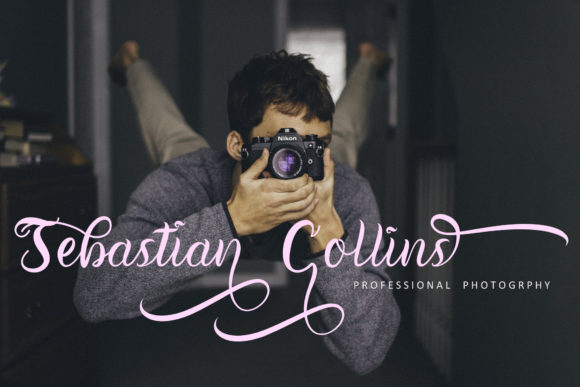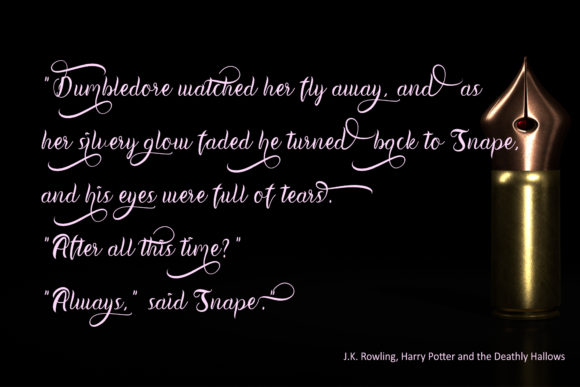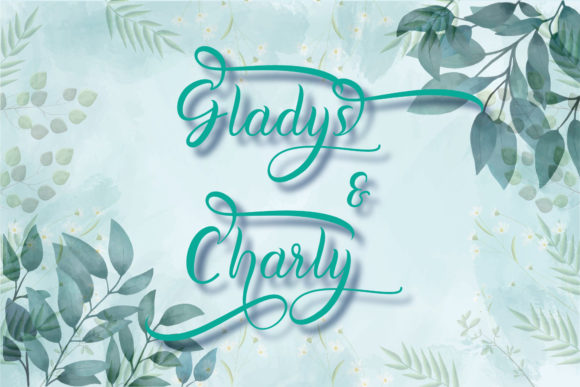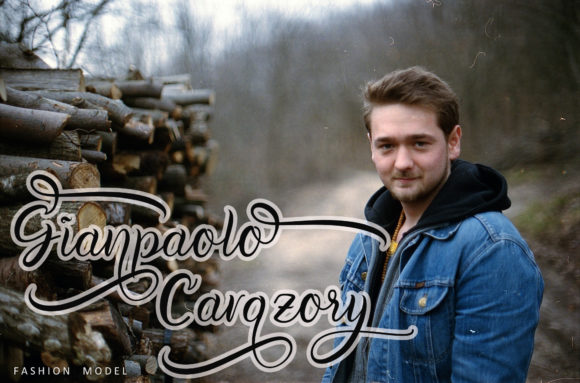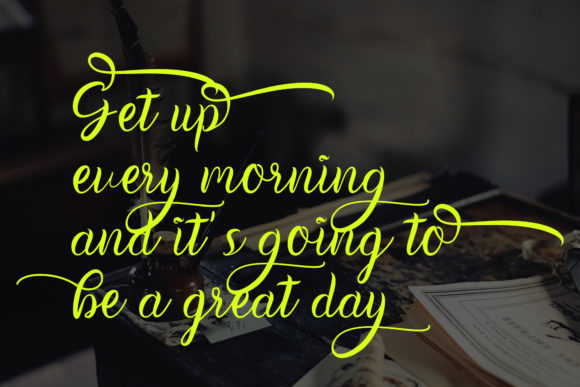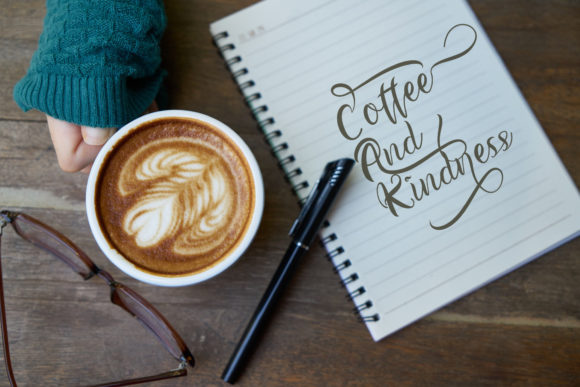
Cittadella Citta Font: A Romantic and Sweet Calligraphy Typeface
Are you a designer or crafter looking for a unique and elegant font to add a touch of sophistication to your projects? Look no further than Cittadella Citta, a romantic and sweet calligraphy typeface that is sure to capture your heart. In this article, we’ll take a closer look at this beautiful font, its features, and how you can use it to elevate your designs.
What is Cittadella Citta Font?
Cittadella Citta is a stunning calligraphy font that features characters that dance along the baseline, giving it a playful and whimsical feel. This font is perfect for designers and crafters who want to add a touch of elegance and romance to their projects. Whether you’re working on a wedding invitation, a branding project, or a digital product, Cittadella Citta is sure to make your designs stand out.
Key Features of Cittadella Citta Font
So, what makes Cittadella Citta font so special? Here are some of its key features:
- Romantic and Sweet: The font features a romantic and sweet style that is perfect for designers and crafters who want to add a touch of elegance to their projects.
- Dancing Characters: The characters in Cittadella Citta font dance along the baseline, giving it a playful and whimsical feel.
- Calligraphy Style: The font features a beautiful calligraphy style that is perfect for a variety of design projects.
How to Use Cittadella Citta Font
- Wedding Invitations: Cittadella Citta font is perfect for wedding invitations, save-the-date cards, and other wedding-related designs.
- Branding Projects: The font can be used for branding projects, such as logos, business cards, and letterheads.
- Digital Products: Cittadella Citta font can be used for digital products, such as social media graphics, blog posts, and email newsletters.
- Crafting Projects: The font is also perfect for crafting projects, such as scrapbooking, card making, and journaling.
Benefits of Using Cittadella Citta Font
- Unique and Elegant: Cittadella Citta font is a unique and elegant font that will make your designs stand out.
- Versatile: Cittadella Citta font can be used for a variety of design projects, from wedding invitations to branding projects.
- High-Quality: The font is high-quality and will look great in any design project.
In conclusion, Cittadella Citta font is a beautiful and elegant calligraphy typeface that is perfect for designers and crafters who want to add a touch of sophistication to their projects. With its PUA encoding, romantic and sweet style, and dancing characters, this font is sure to make your designs stand out. Whether you’re working on a wedding invitation, a branding project, or a digital product, Cittadella Citta font is a great choice.
Overall, Cittadella Citta font is a great addition to any designer’s or crafter’s font collection. Its unique and elegant style, ease of use, and versatility make it a must-have font for any design project.